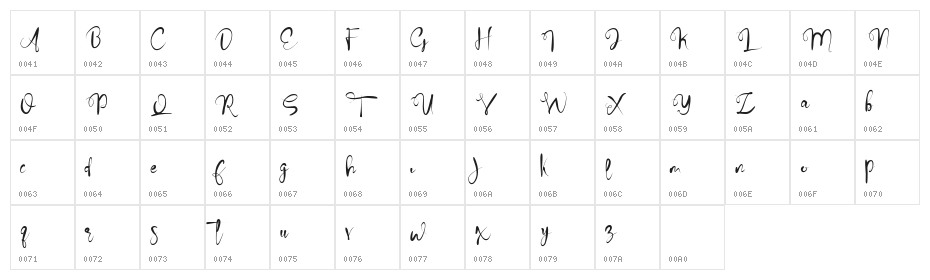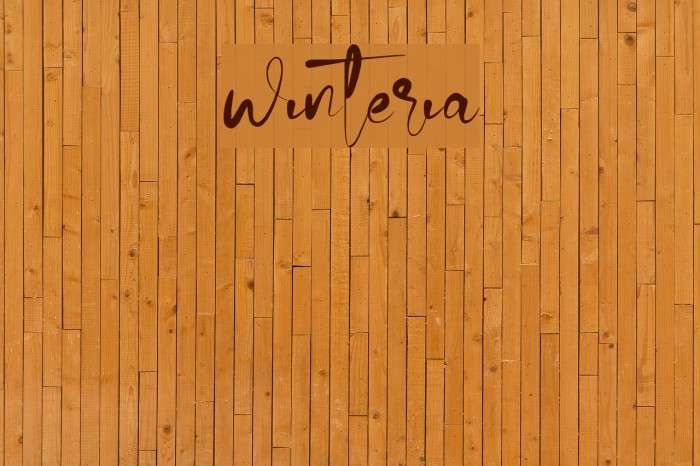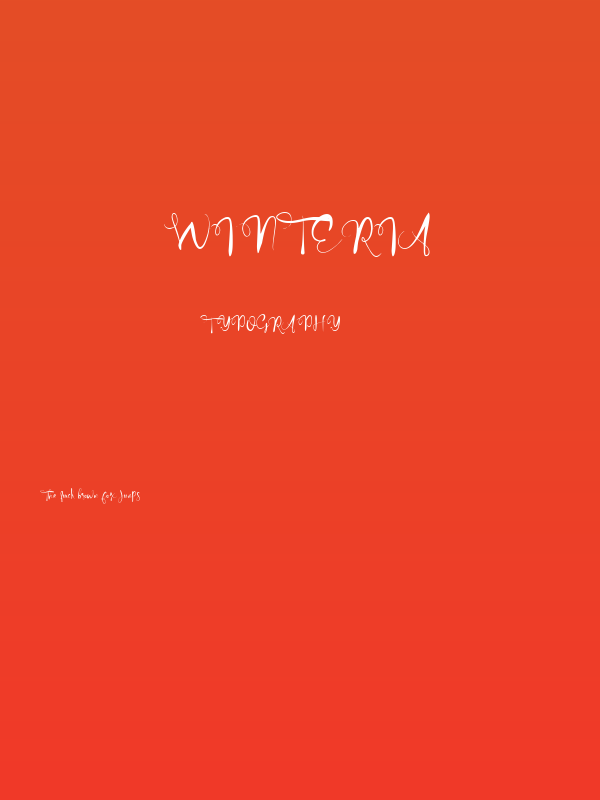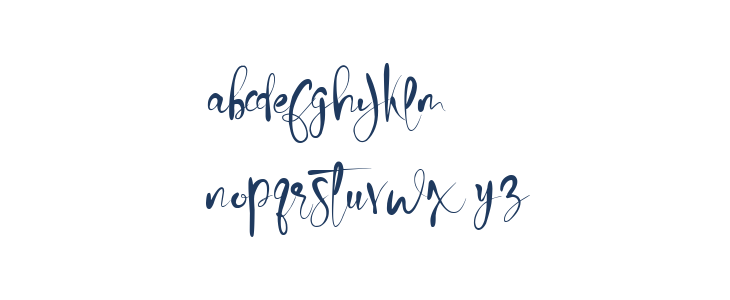
winteria Font
winteria Description
This font exudes a whimsical and elegant charm, characterized by its flowing, cursive style with elaborate swashes and loops. The uppercase letters are particularly ornate, with each character featuring unique flourishes that add a touch of sophistication. The lowercase letters maintain a consistent cursive flow, complementing the uppercase with their own subtle embellishments. The numbers and special characters follow the same decorative theme, ensuring a cohesive look across all elements. This font's artistic flair makes it ideal for creative projects that require a personal and stylish touch.
| Use Case | Logos, Invitations, Decorative text |
| Proposed Projects | Ideal for wedding invitations, greeting cards, branding, and logo design. |